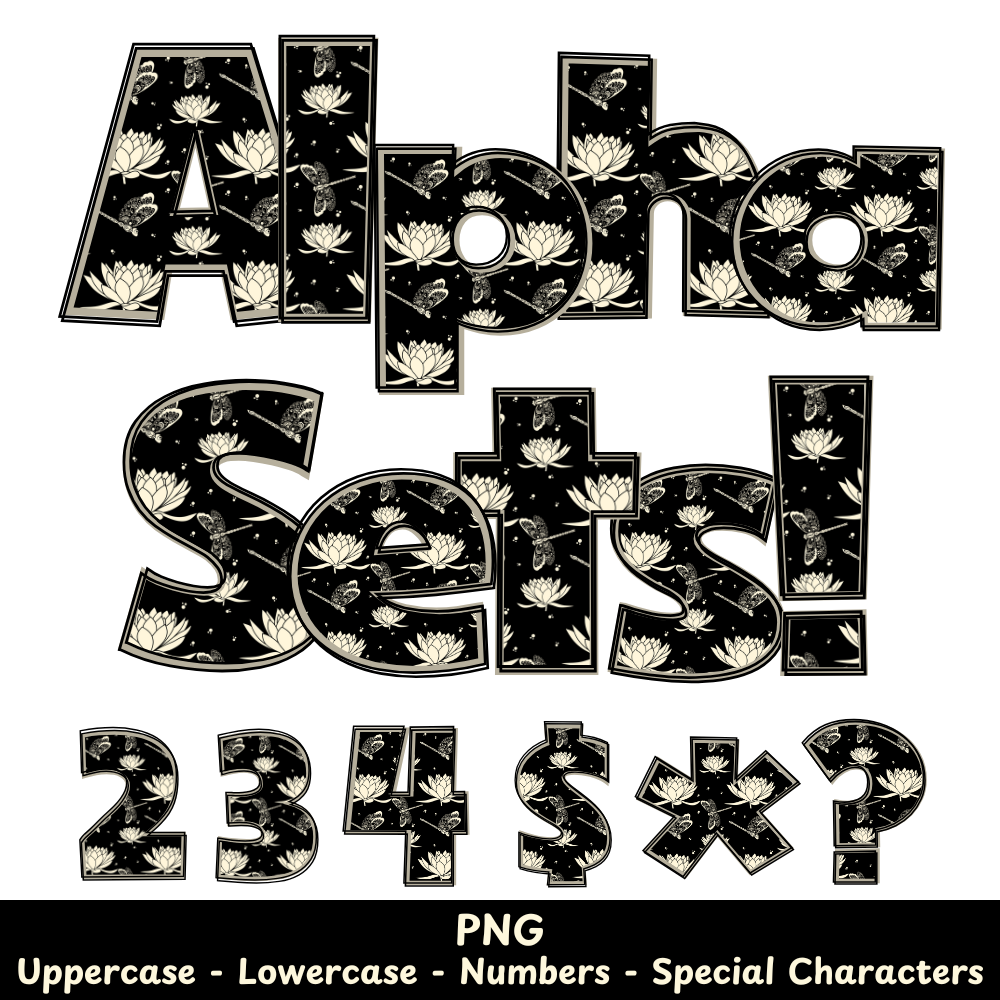
Dragon Fly Flowers PNG Font
Dragon Fly Flowers Alpha Set PNG Font Pack
This Dragon Fly Flowers PNG Font is perfect for any creative project, from crafts to sublimation. With its beautiful and intricate design, it will add a unique touch to your work. Plus, its high-quality PNG format ensures easy use and compatibility. Elevate your projects with this versatile and expertly designed font.